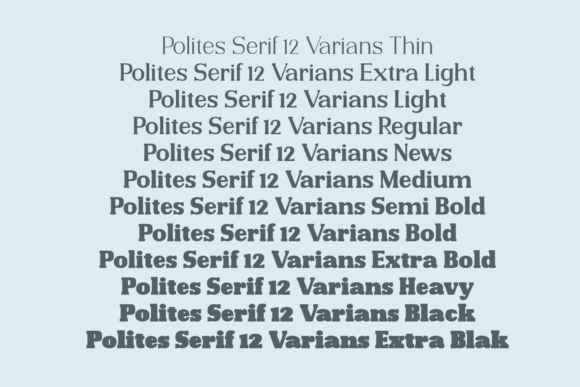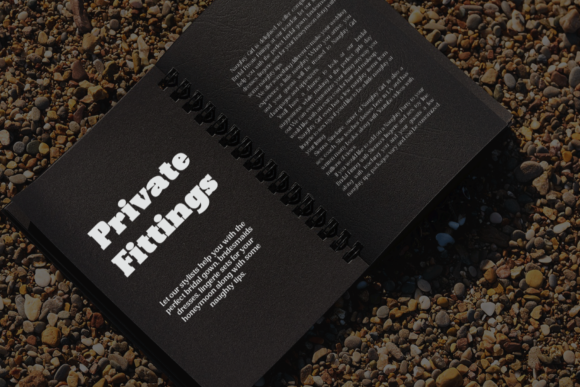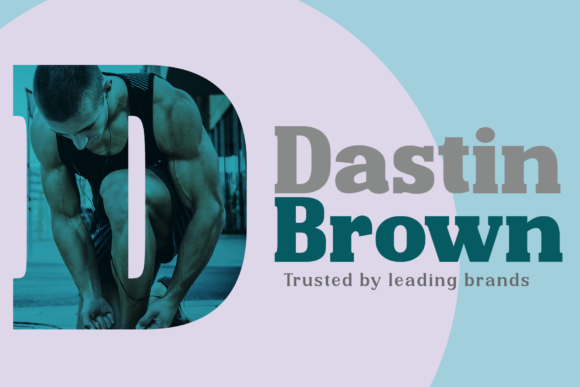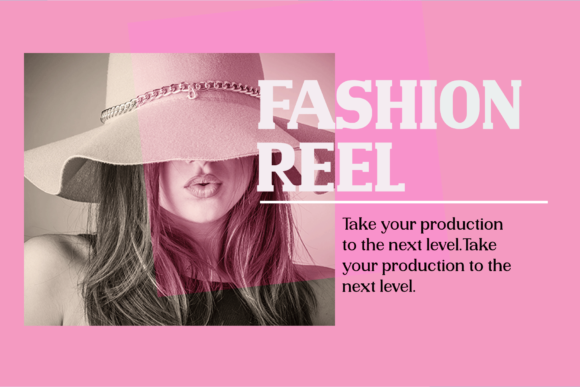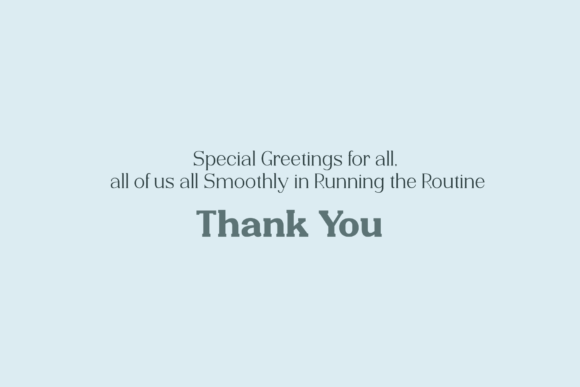
Introduction to Polites Font
Polites is a bold and chunky lettered serif font.
It is suitable for any branding, product packaging, invitation, quote, t-shirt, label, poster, logo that you wish to develop .
Key Features of Polites Font
Why Choose Polites Font?
Polites Font offers exceptional quality and versatility, making it a valuable addition to your design toolkit. Whether you’re creating for personal projects or commercial use, Polites Font delivers professional results.